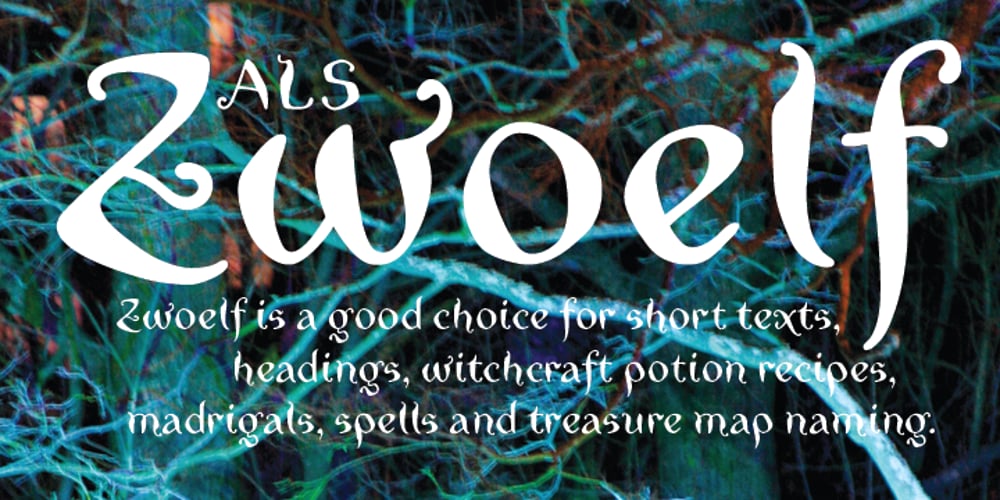
ALS Zwoelf Font Family was designed by Zakhar Yaschin, Irina Smirnova, Oleg Pashchenko and published by Art. Lebedev Studio. ALS Zwoelf contains 1 styles and family package options. The design of Zwoelf stems from a letter created by Oleg Pashchenko for the poetry book called “They Talk.” Modified in several ways, the lettering gained readability and a more neutral look. This typeface combines Modern and Gothic styles, ugliness and beauty, the horrifying and the funny. Typographers may highlight any of this. Zwoelf features elements that can be found in both Roman and Gothic styles, but has no real historical prototype. It creates coarse body copy that feels like blackletters. The type is well-suited for use with rough line graphics. Zwoelf is a good choice for short texts, headings, witchcraft potion recipes, madrigals, spells and treasure map naming.